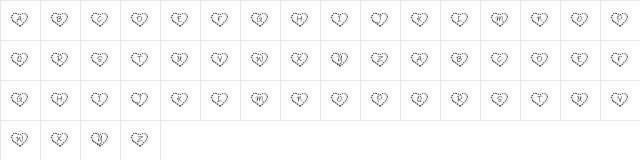
KR Heart of Flowers Regular
Design Context for KR Heart of Flowers Typeface
KR Heart of Flowers is a composed and adaptable typeface that performs quietly and consistently across a wide range of design contexts.